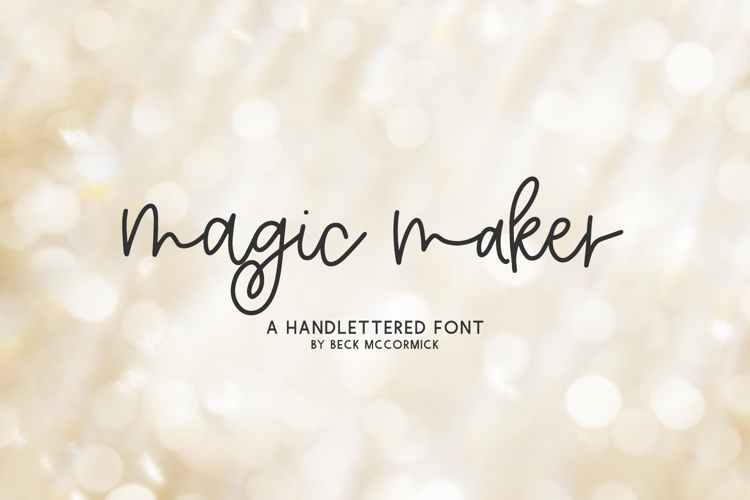
Magic Maker Script
Introducing Magic Maker Script, a handlettered monoline modern calligraphy script. Magic Maker Script features 29 alternates & 18 ligatures to enhance the handwritten look & feel of your project.
- 29 alternates
- 18 ligatures - ar, bb, cc, dd, ee, er, ff, ir, ll, mm, nn, oo, or, pp, rr, ss, tt, ur